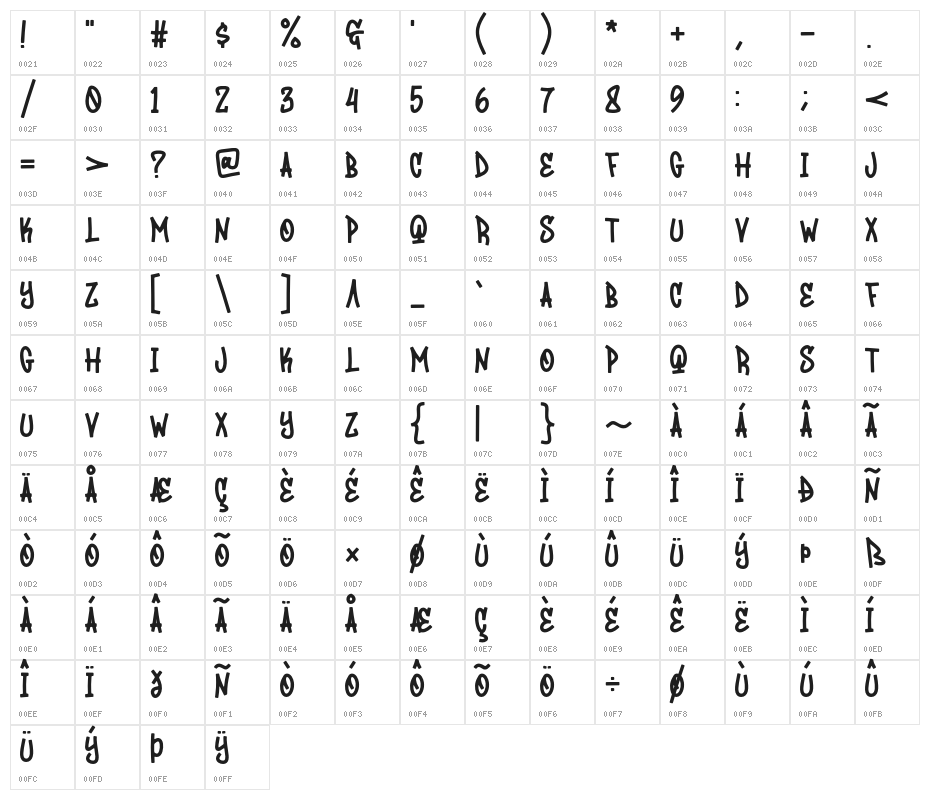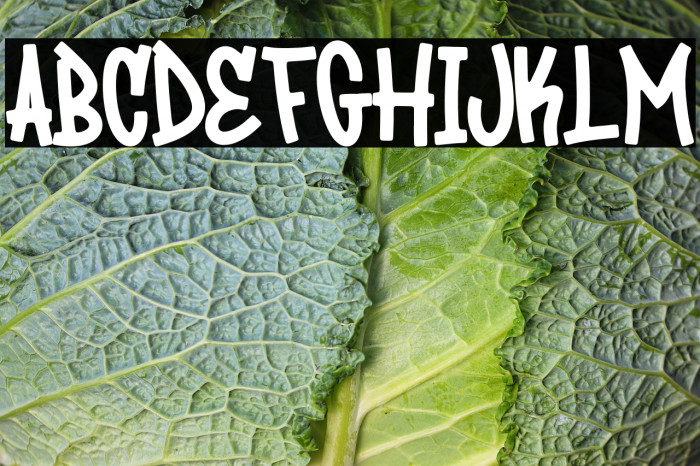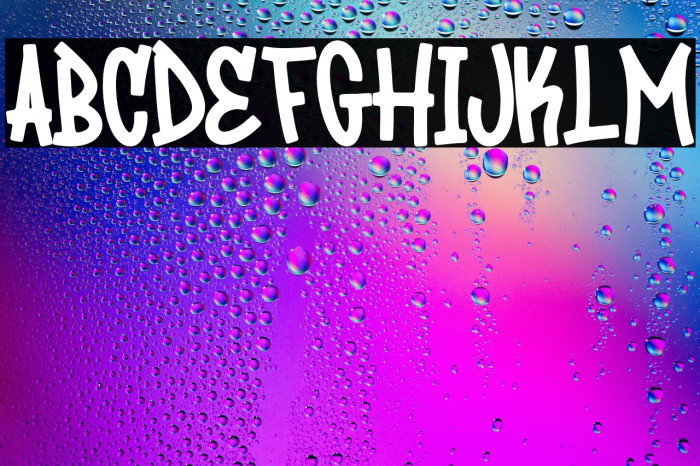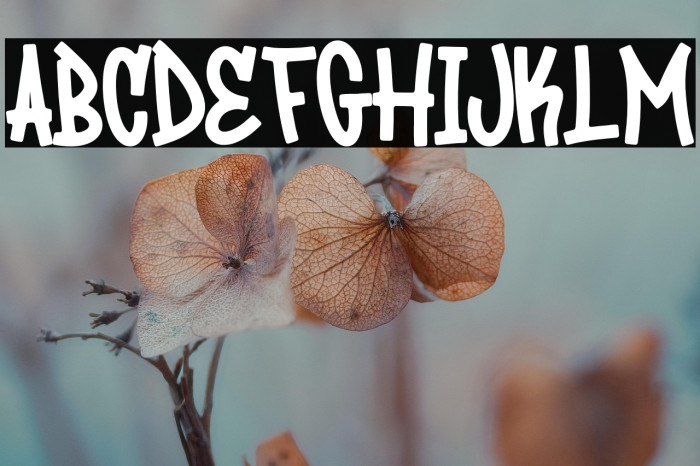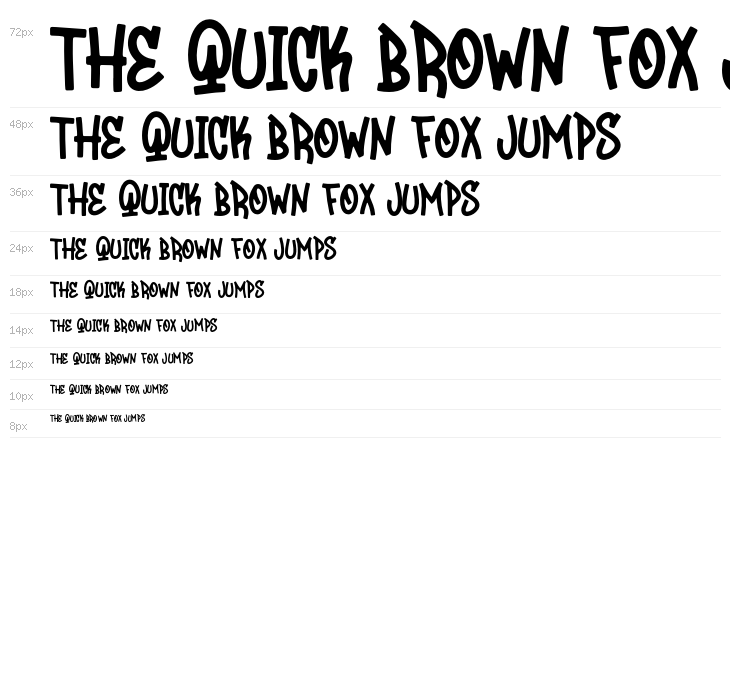
BackPeace Font
BackPeace Description
This font exhibits a playful and bold handwritten style, characterized by its thick strokes and slightly irregular shapes, giving it a casual and informal appearance. The letters are slightly slanted, adding to the dynamic and energetic feel. The uppercase and lowercase letters maintain a consistent style, with rounded edges and a slightly exaggerated height, which enhances readability while maintaining a whimsical charm. The numbers and special characters are designed to match the overall aesthetic, ensuring a cohesive look across all text elements. This font is perfect for projects that require a fun and approachable vibe.
| Overall Style | Playful |
| Proposed Projects | Ideal for children's books, playful branding, casual invitations, and social media graphics. |